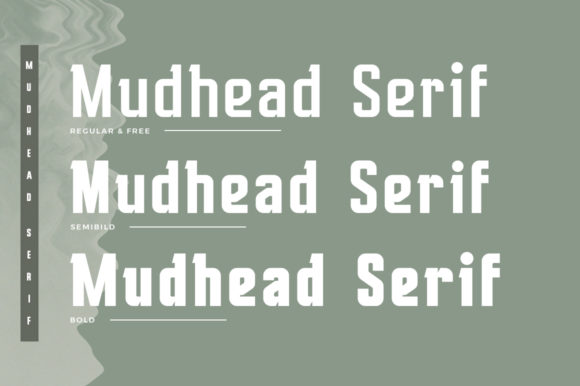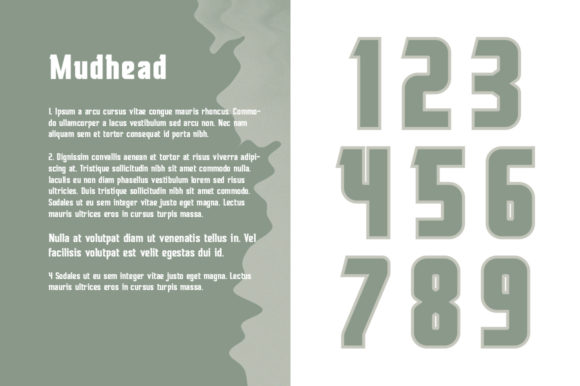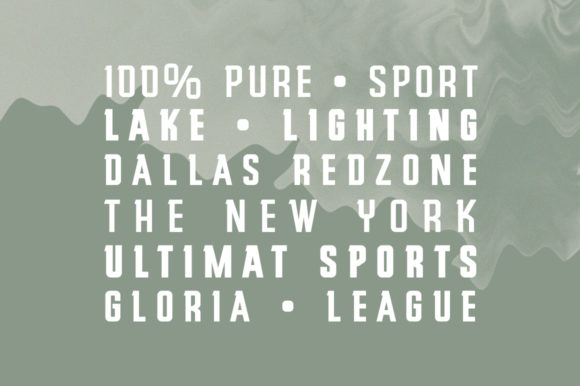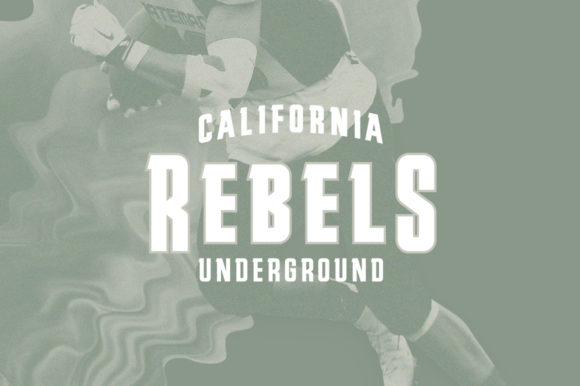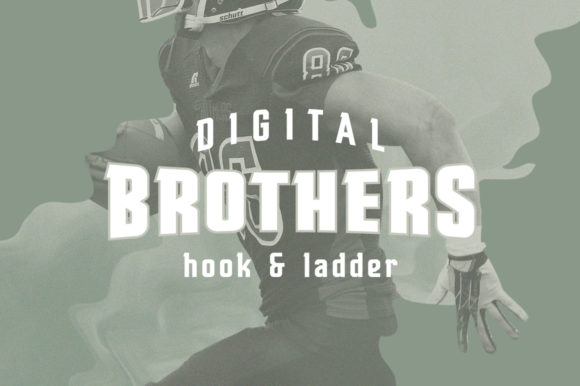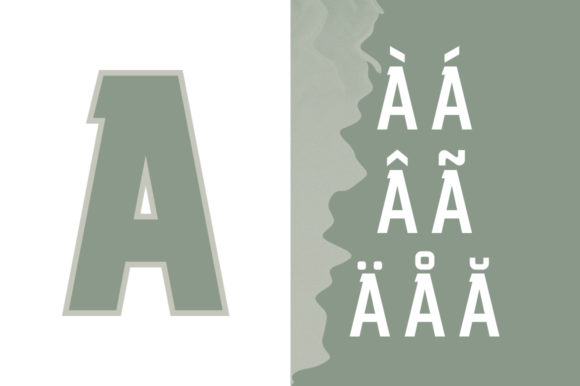
Introduction to Mudhead Serif Font Font
Fonts play a crucial role in design, and the Mudhead Serif Font font is a typeface that brings both character and versatility to any project. Whether you’re working on a branding project, a website, or a print design, the Mudhead Serif Font font offers a unique style that can elevate your work.
| 📌 Font Name | Mudhead Serif Font |
| 👤 Author | Headfonts |
Mudhead Serif is an iconic serif font with beautiful characters.
Get inspired by its bold charm .
Key Features of Mudhead Serif Font Font
Why Choose Mudhead Serif Font Font?
The Mudhead Serif Font font is more than just a typeface – it’s a design tool that helps you communicate your message with style and clarity. Its unique character set and versatile design make it suitable for a wide range of applications, from elegant invitations to bold headlines.
With its carefully crafted letterforms and balanced proportions, the Mudhead Serif Font font ensures readability and visual appeal across all mediums.
What makes Mudhead Serif Font font special?
The Mudhead Serif Font font stands out with its unique design, exceptional readability, and versatility across various design applications.